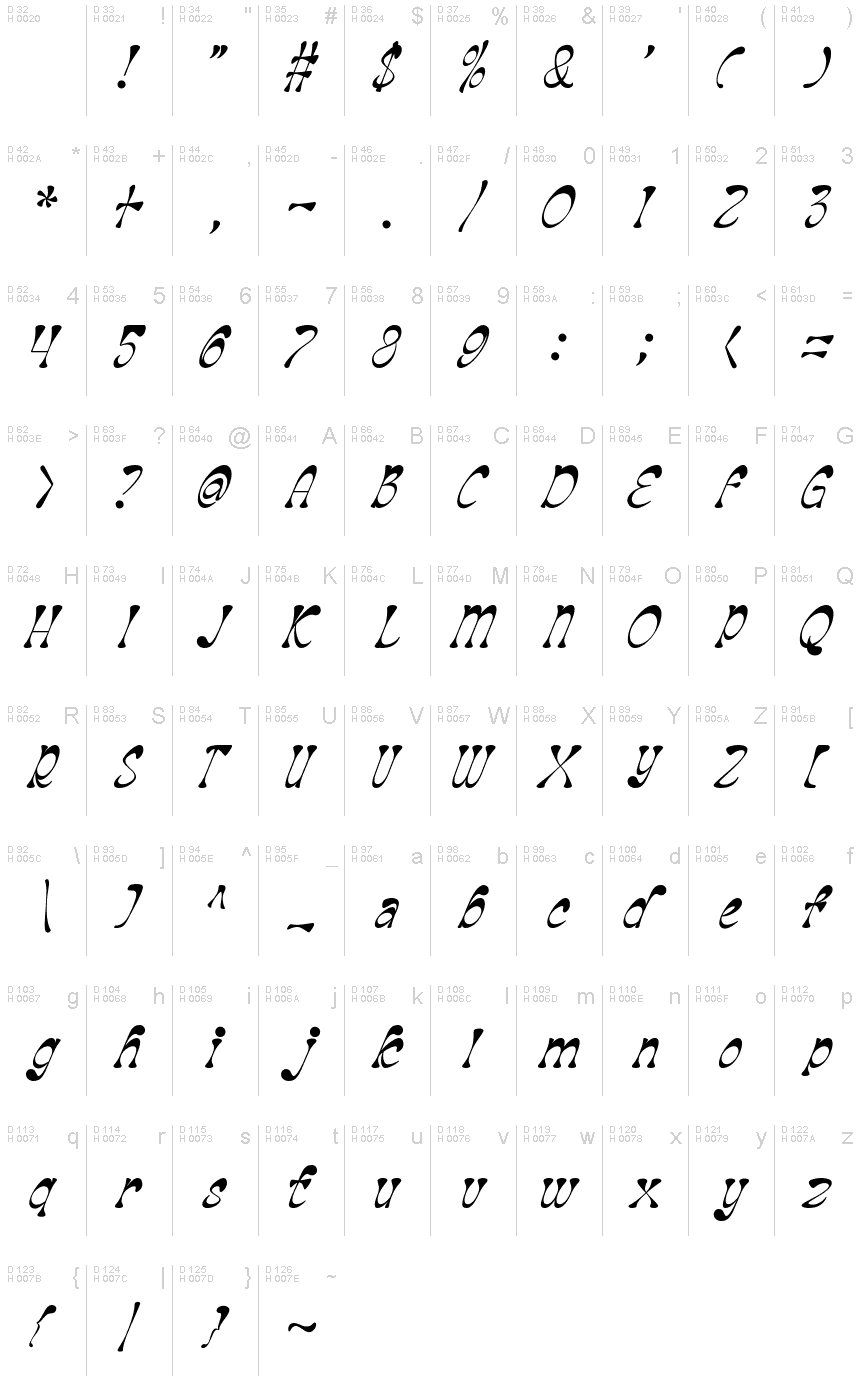
Brioche
Brioche, crafted by ToniStudio, is a groovy display font that exudes retro charm with its condensed style. Perfect for capturing attention and adding a touch of nostalgia, this font is ideal for various projects. Use it to create eye-catching logos and branding materials that demand recognition. Brioche's playful yet sophisticated design makes it an excellent choice for poster designs, album covers, and vintage-inspired packaging. Its condensed width allows for efficient use of space, making it suitable for headlines and titles in editorial layouts. Embrace the groovy vibes and let Brioche bring your creative projects to life!